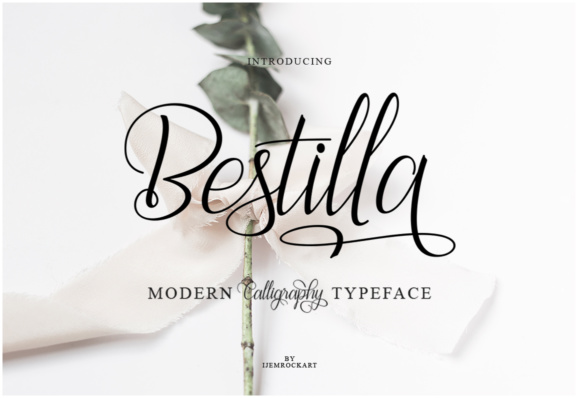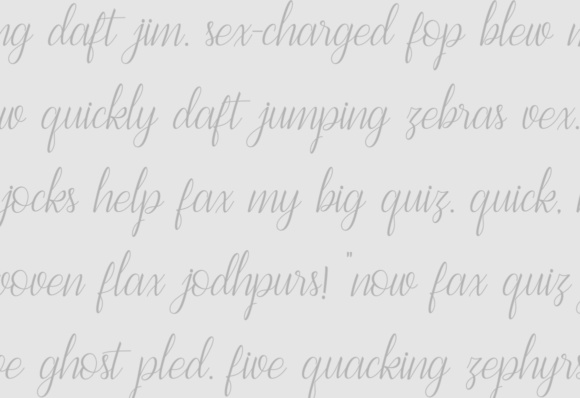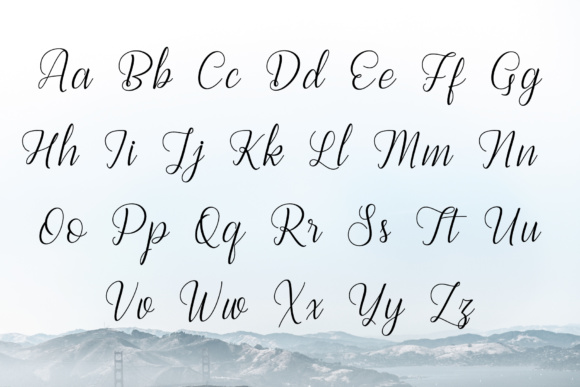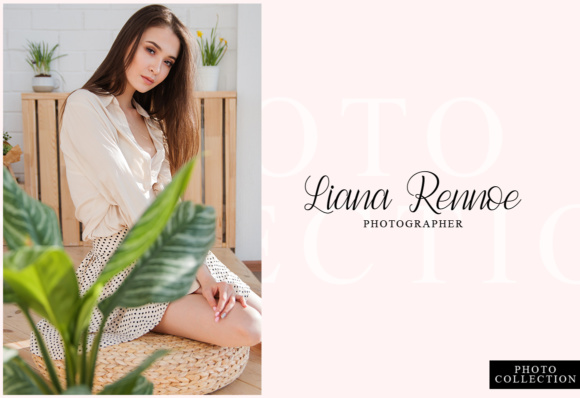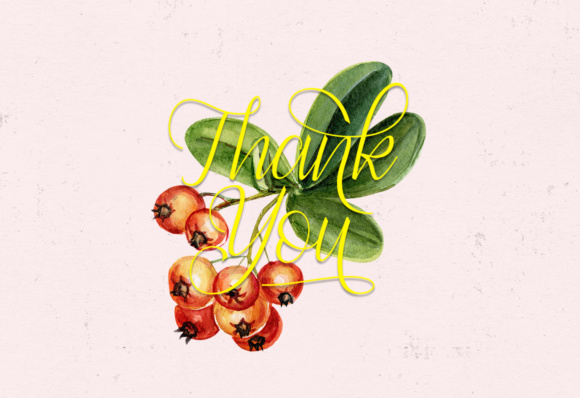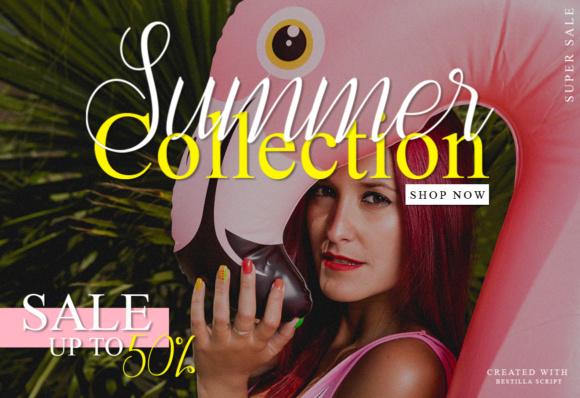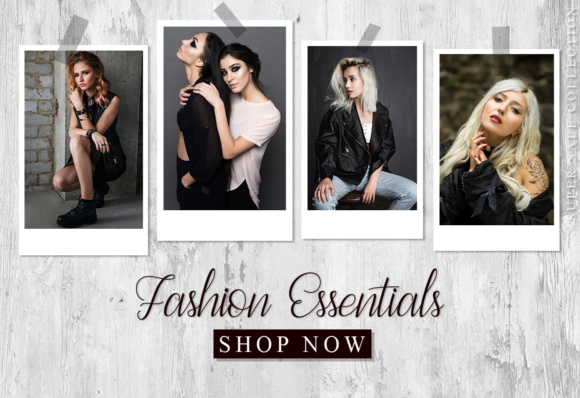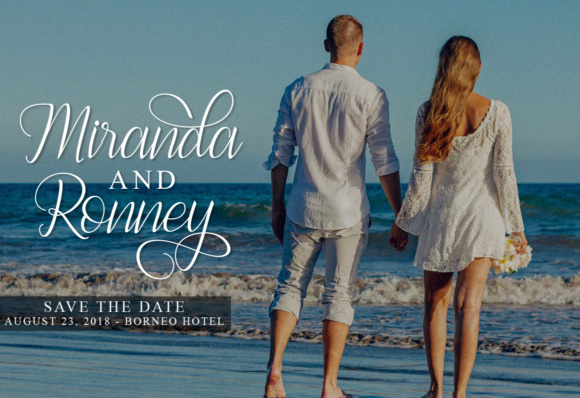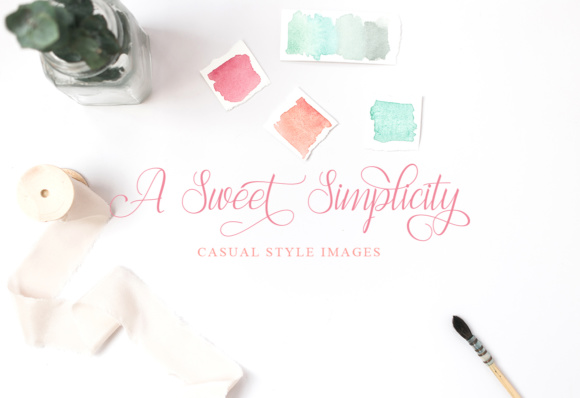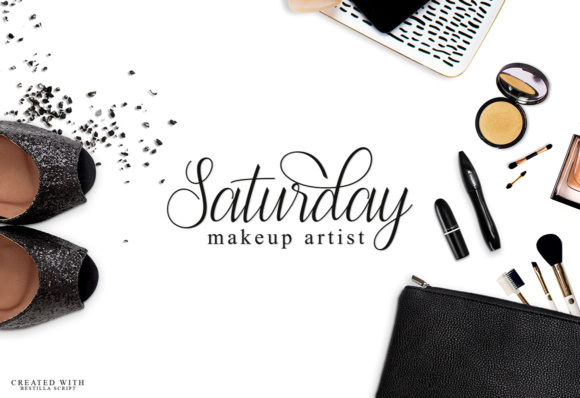
Bestilla Font
About Bestilla Font
Bestilla is a gorgeous, swashy font with decorative characters and tons of beauty! This is a great font with over 1,300+ glyphs, so you can create the most unique looking calligraphy imaginable!